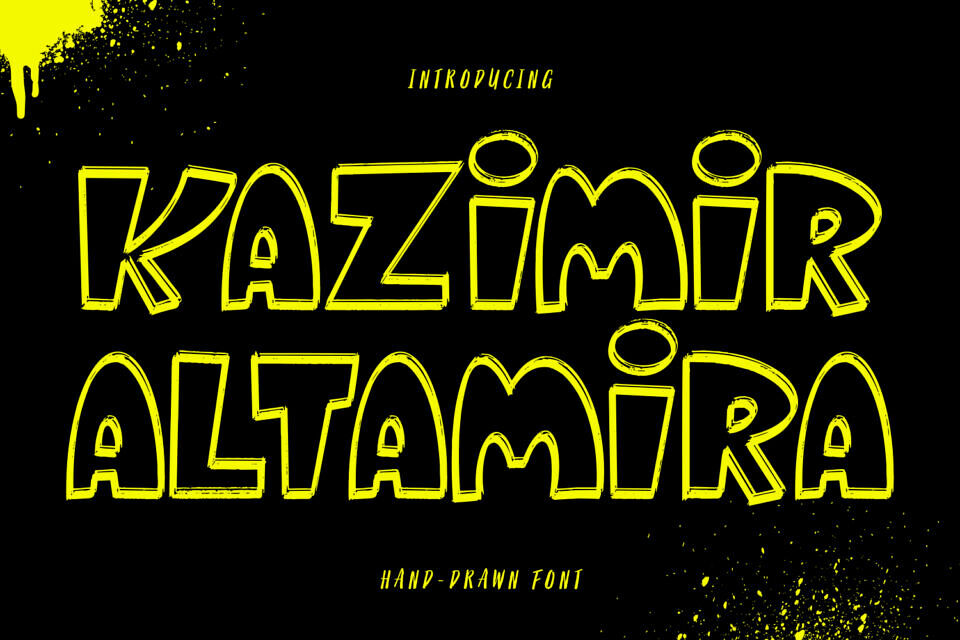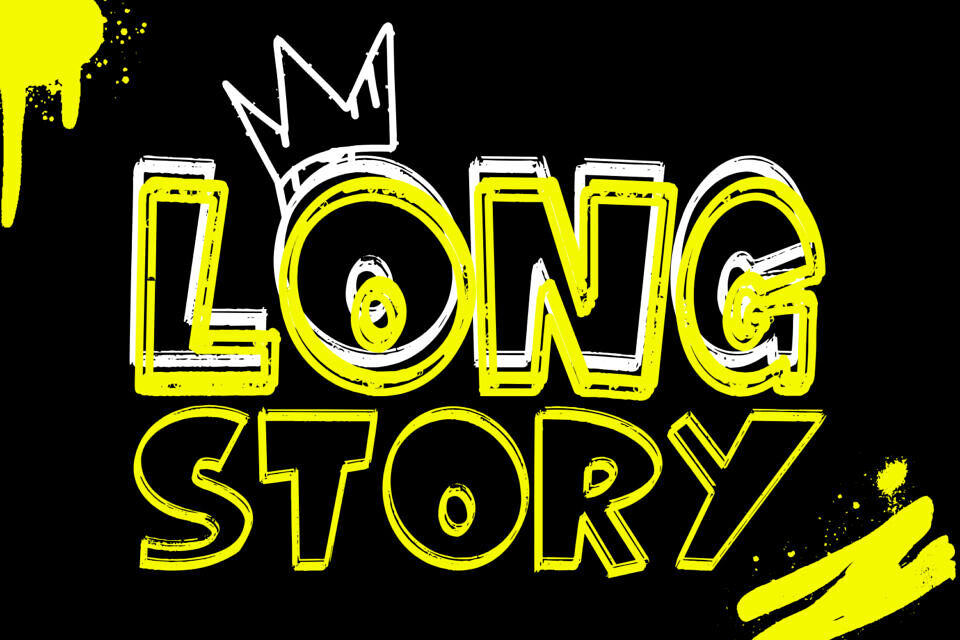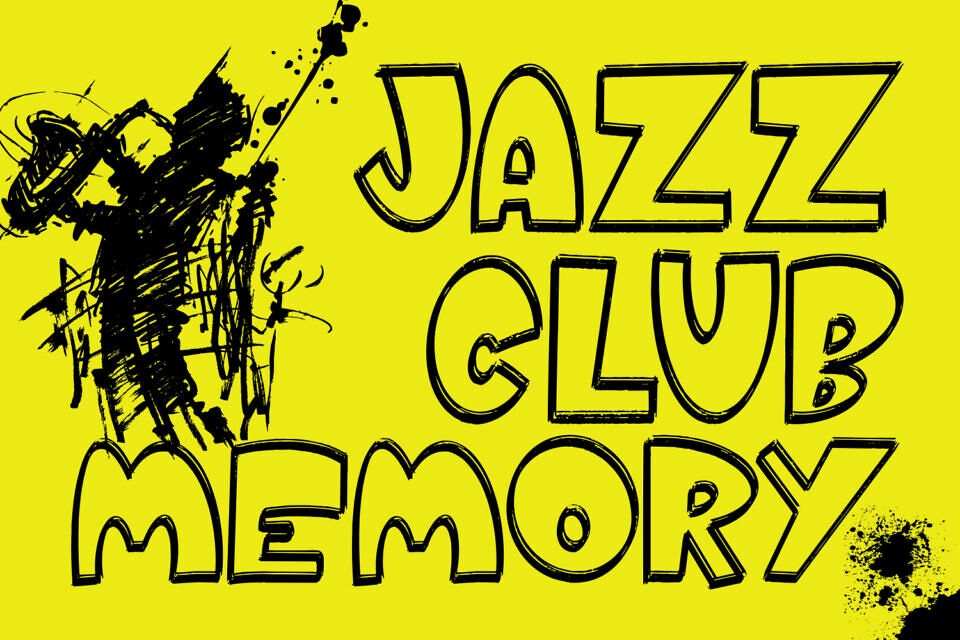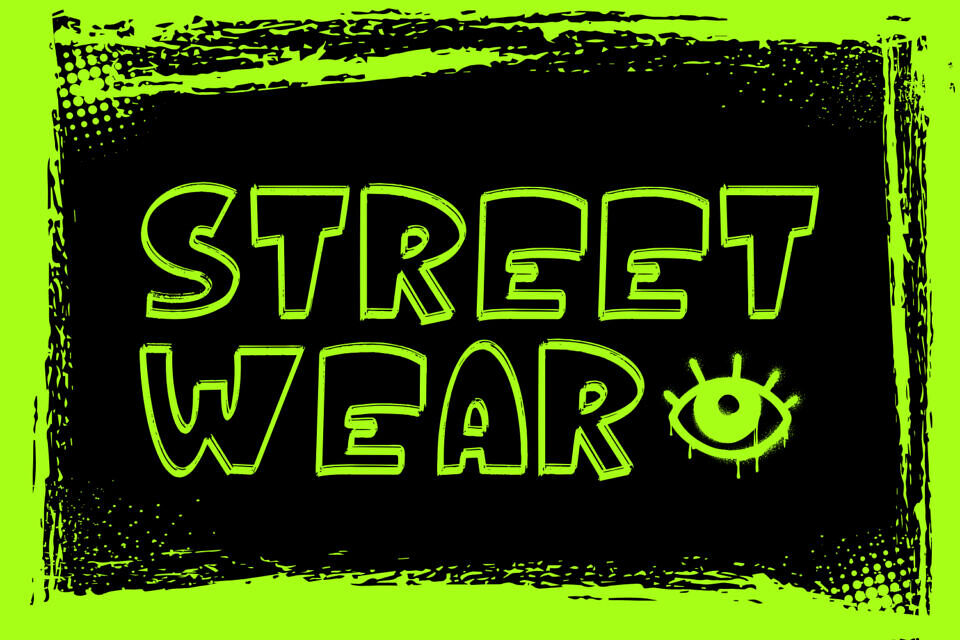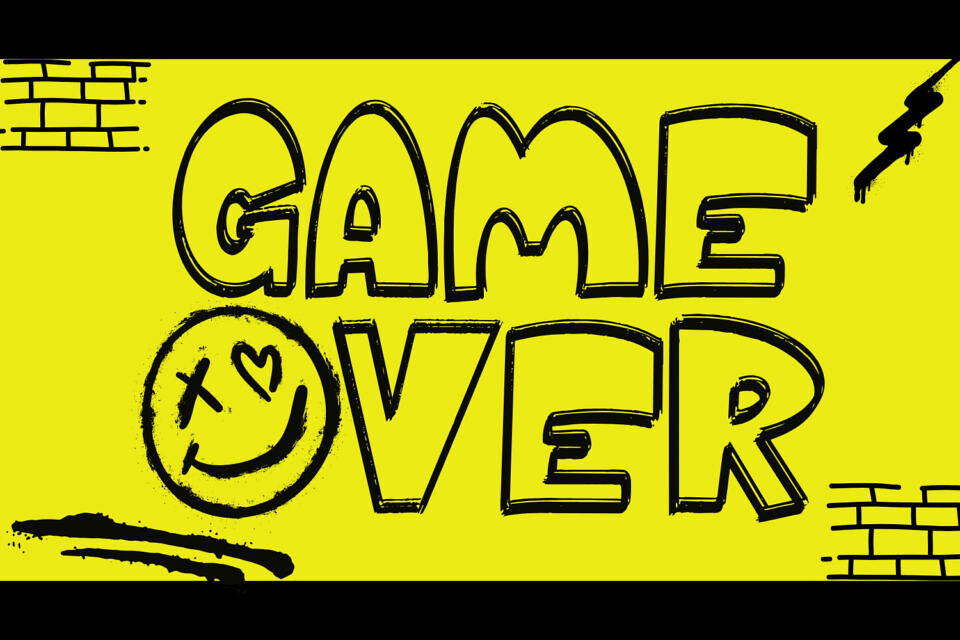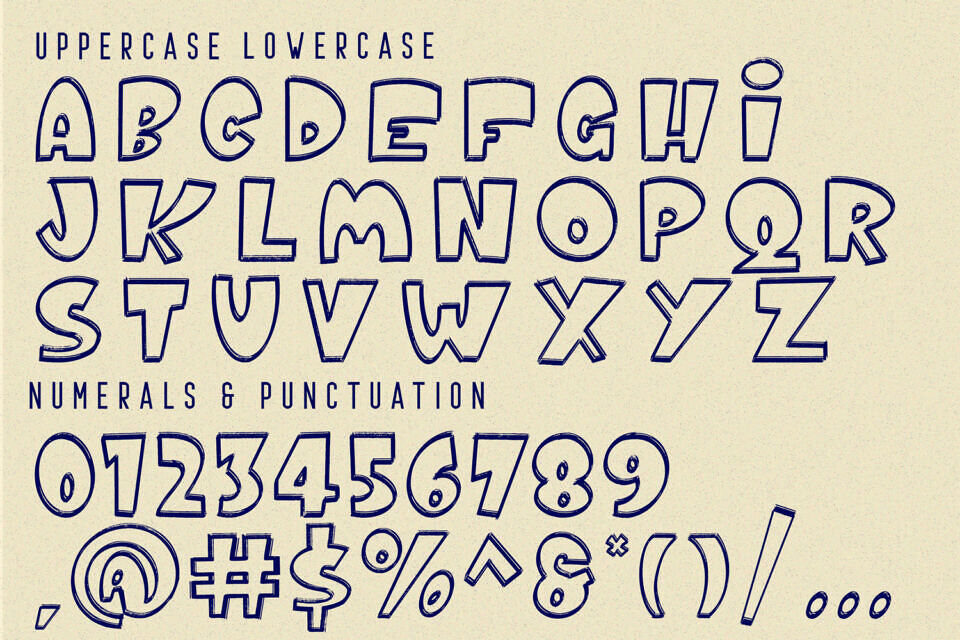
Kazimir Altamira is a bold and playful hand-drawn display font that radiates playful energy and urban charm. Its blocky letterforms are outlined with rough sketch strokes, evoking a sense of spontaneity and artistic freedom.
The imperfect hand-crafted edges give the typeface a fun, approachable, and expressive character. Perfect for posters, comics, streetwear branding, children’s books, DIY projects, and eye-catching social media graphics, this font captures the spirit of creativity and bold self-expression.